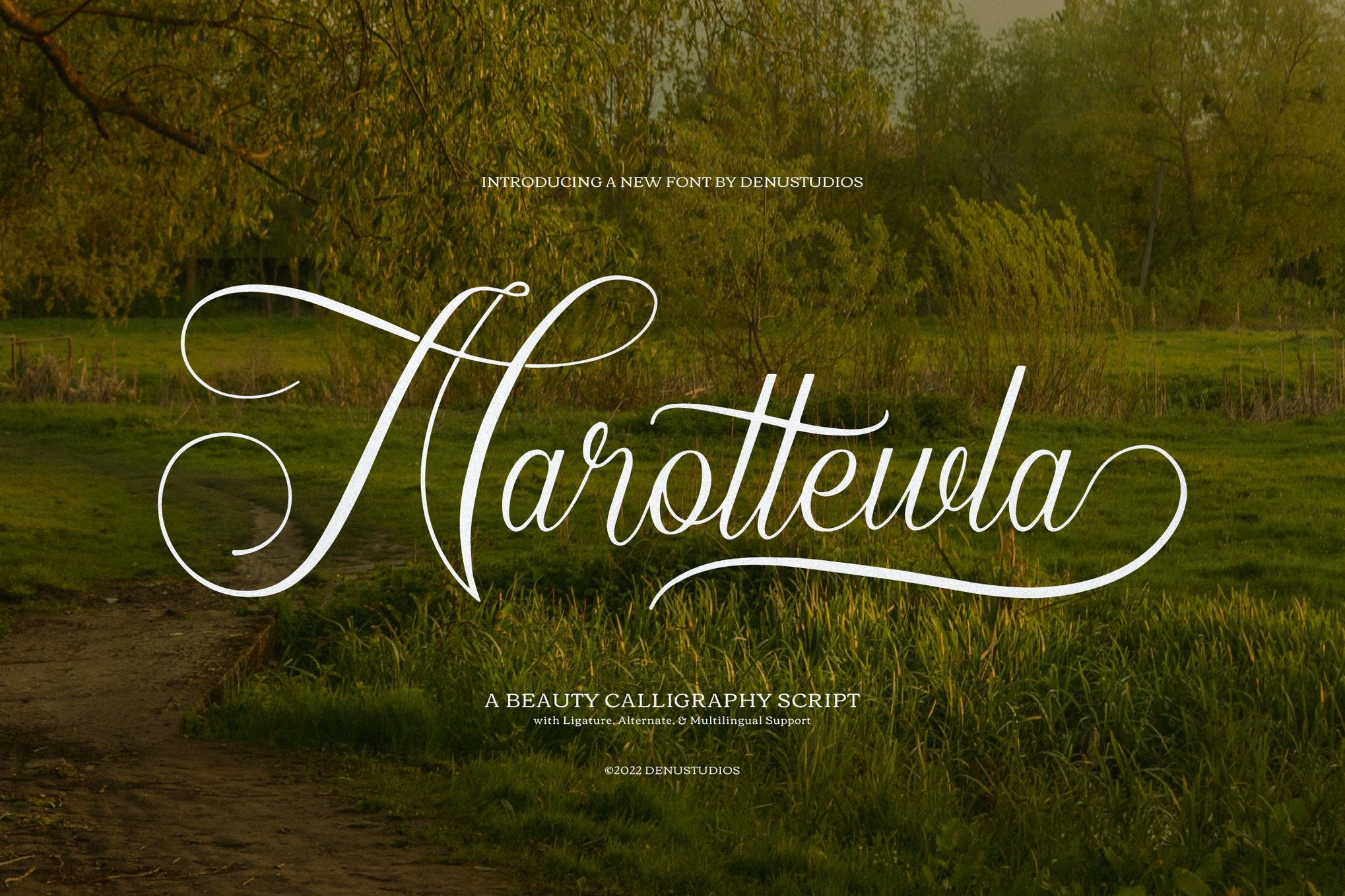
Narottewla – Beauty Callighraphy Script Font
Narottewla – Beauty Callighraphy Script Font brings a balanced structure and contemporary look, making it suitable for both digital and print design. The Narottewla font is designed to deliver a strong, versatile visual character, balancing aesthetics and readability. Every detail is carefully crafted to ensure a clear, consistent, and visually appealing result across a wide range of design needs. With well-structured letter proportions and support for features such as alternate characters and ligatures, this font allows for greater creative exploration. The final result is dynamic, distinctive, and professional, making it adaptable to a range of design styles.